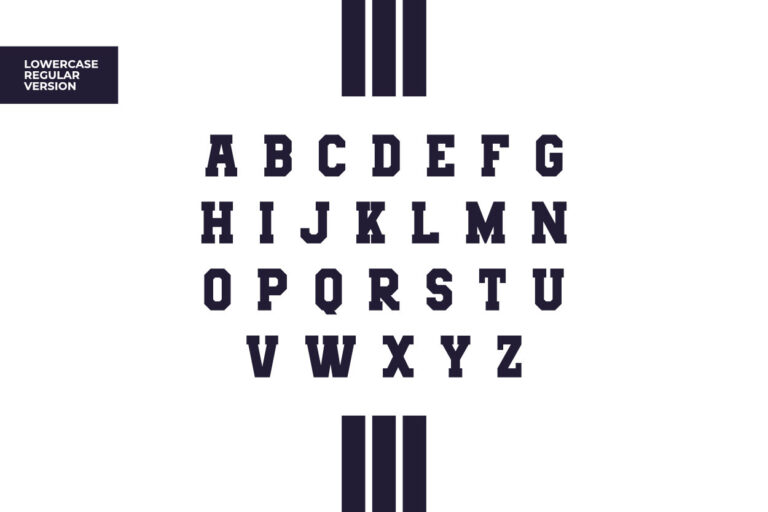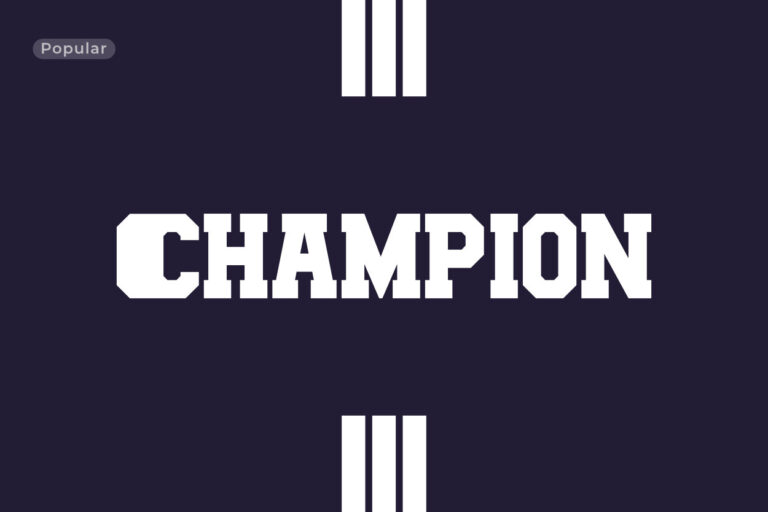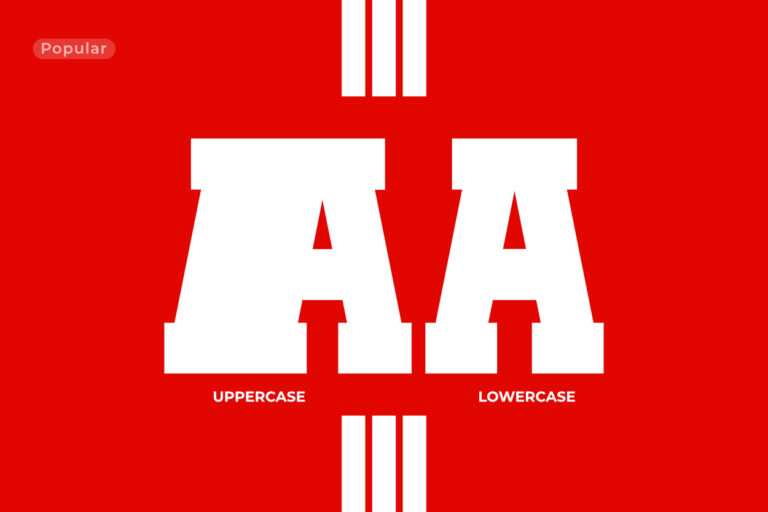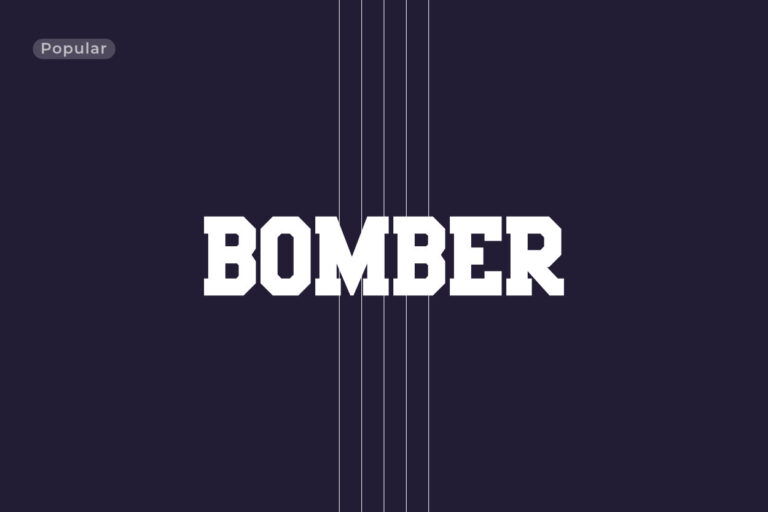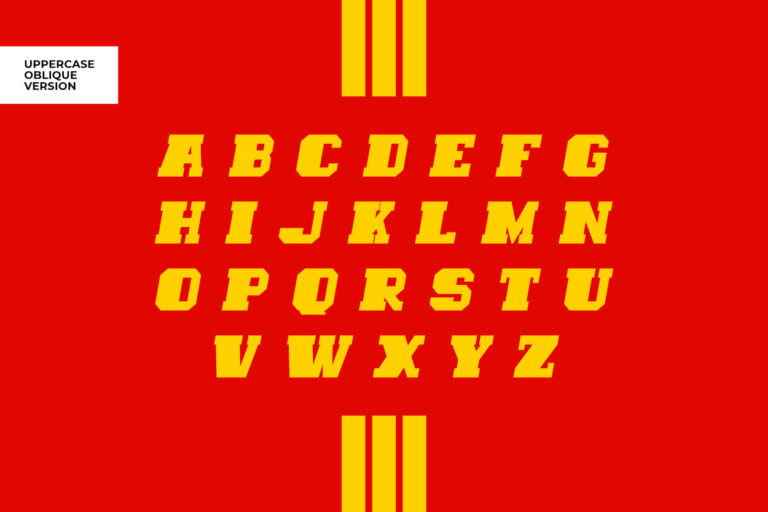
OPEN PLAY ATHLETIC FONT
OPEN PLAY is a great athletic sans serif font that is great for designing team logos. OPEN PLAY look with sharp terminals and spur serif gives this typeface an aggressive appearance. With two font styles available, this sleek font is sure to give your sports branding a competitive edge.